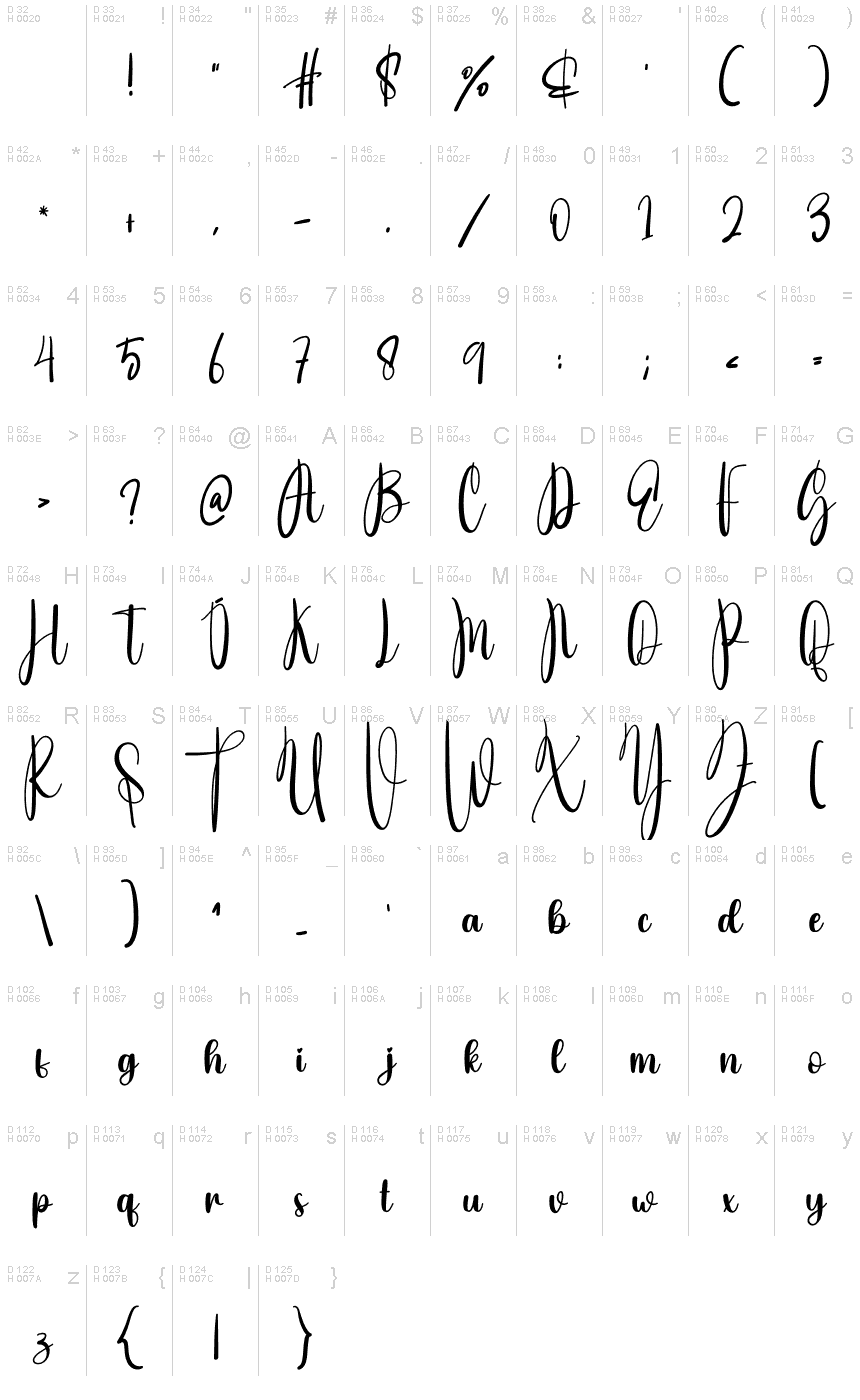
The Gift
The Gift, a handwritten font crafted by Scratchones, brings a touch of personal flair to the digital realm. With its semi-light weight, this font exudes a delicate balance between readability and artistic expression. The elegant swirls and the flowing continuity of letters mimic the charm of traditional penmanship while maintaining an air of modern sophistication.
Visually, The Gift stands out with its subtle variations in stroke thickness that suggest the natural variation found in hand-drawn characters. This characteristic lends an organic feel to digital text, making it warm and inviting to readers. Each glyph is designed with care, ensuring that the typeface retains its distinct personality even when used in longer passages.
Ideal for invitations, branding projects, and personalized messages where a touch of humanity is desired, The Gift can transform any creative project with its aesthetic appeal. Its versatility allows it to fit seamlessly into various designs without overpowering other elements—perfect for those seeking to evoke elegance and approachability in their work.